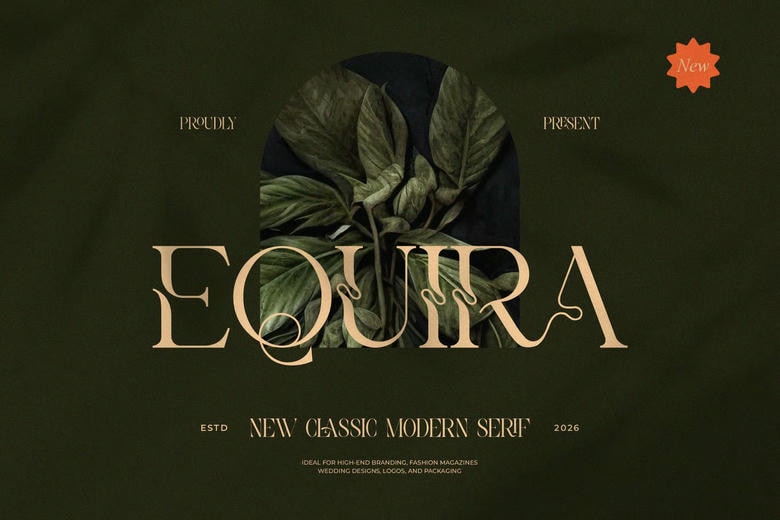
Equira Font
Equira is a new and classy serif font type for all the branding and logo designs. This is a modern and classy font in a Serif style the character is beautiful. This font is suitable for invitation card designs, cool logos, movie titles, movie names, business cards, book title, brand names and various other designs. Equira Serif is a smooth serif font with a sophisticated and the moment feel to it. Its stylish ligatures make this font a perfect partner for any project.
Equira Serif Font